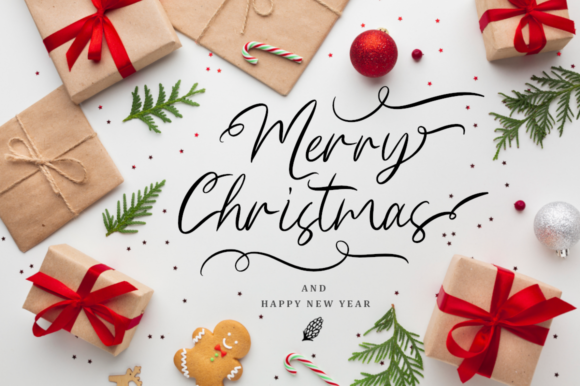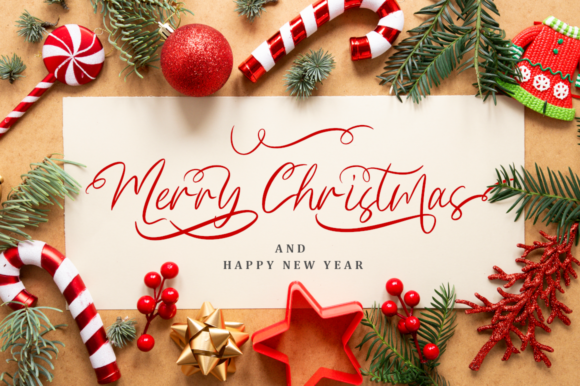
About Hey Christmas Font
Hey Christmas is a beautiful and sweet holiday themed font. It is PUA encoded which means you can access all of the glyphs, christmas ornament and swashes with ease!
This font will look amazing in a great amount of projects, from greeting card to social media quotes, branding and more!